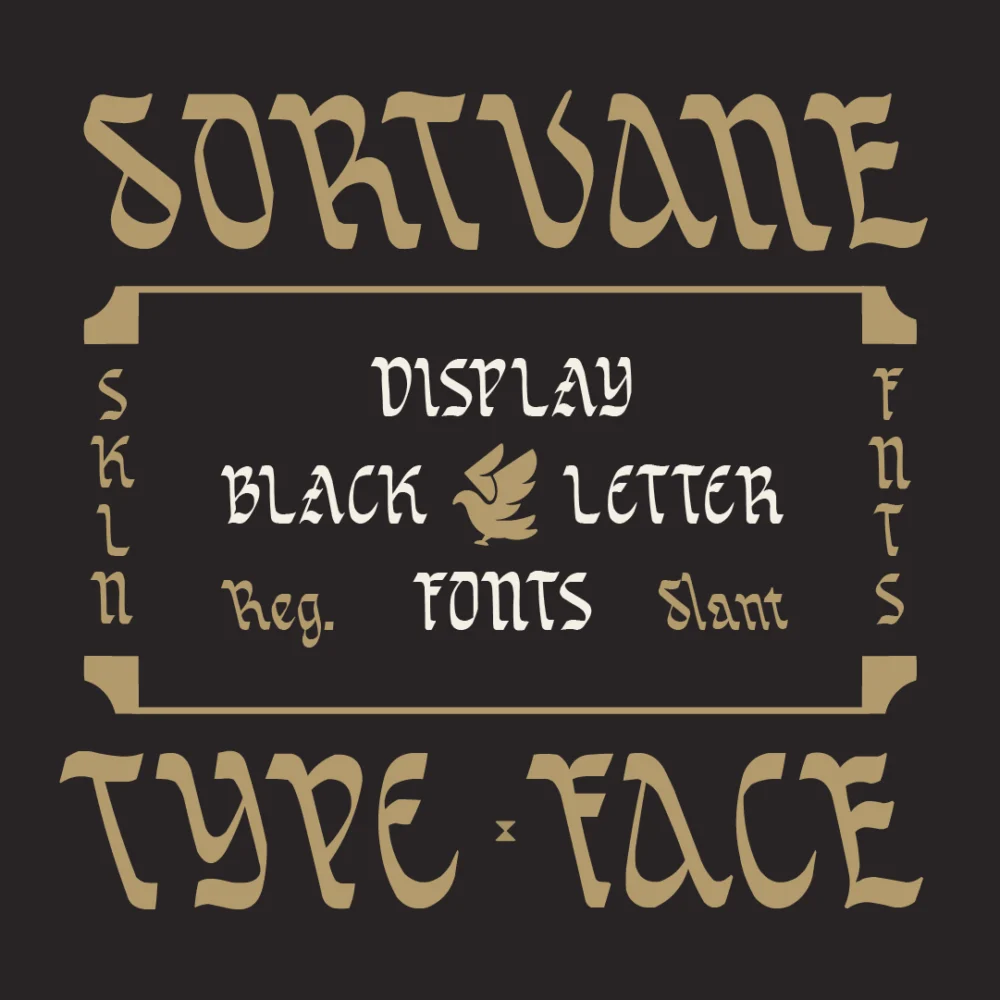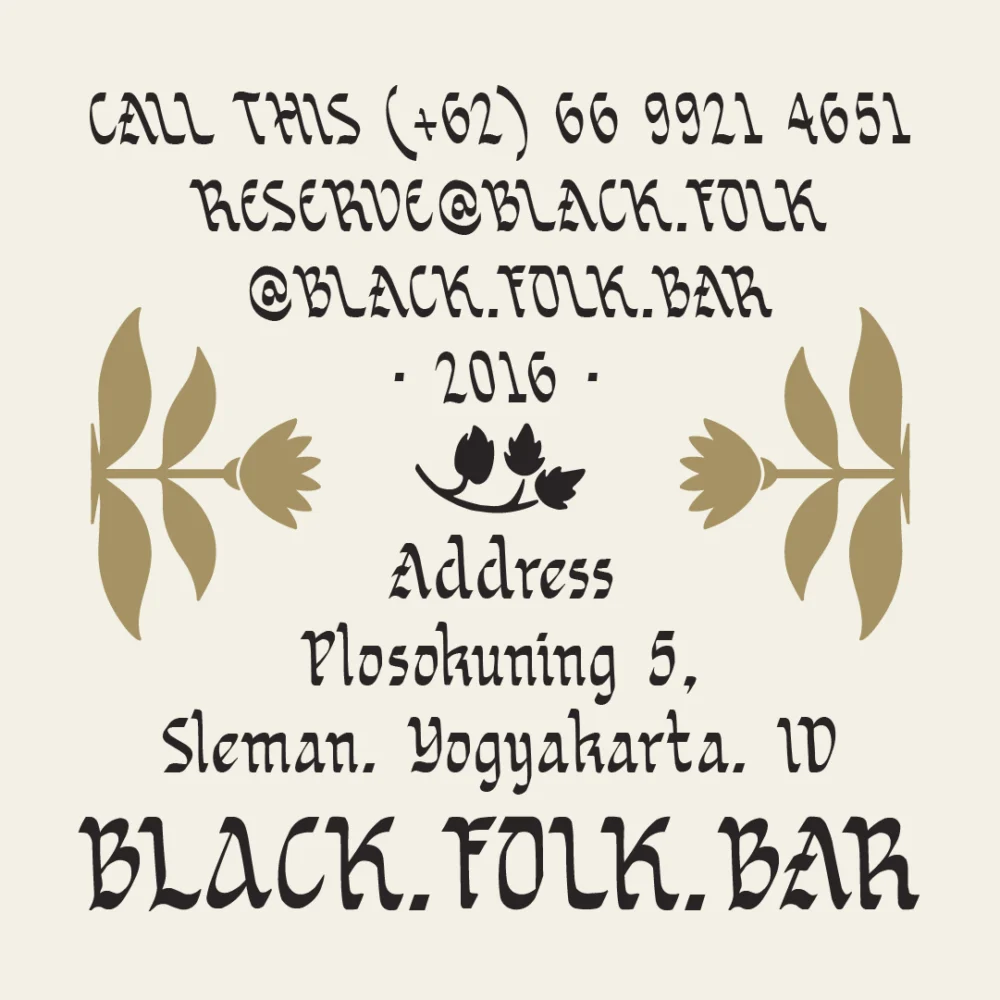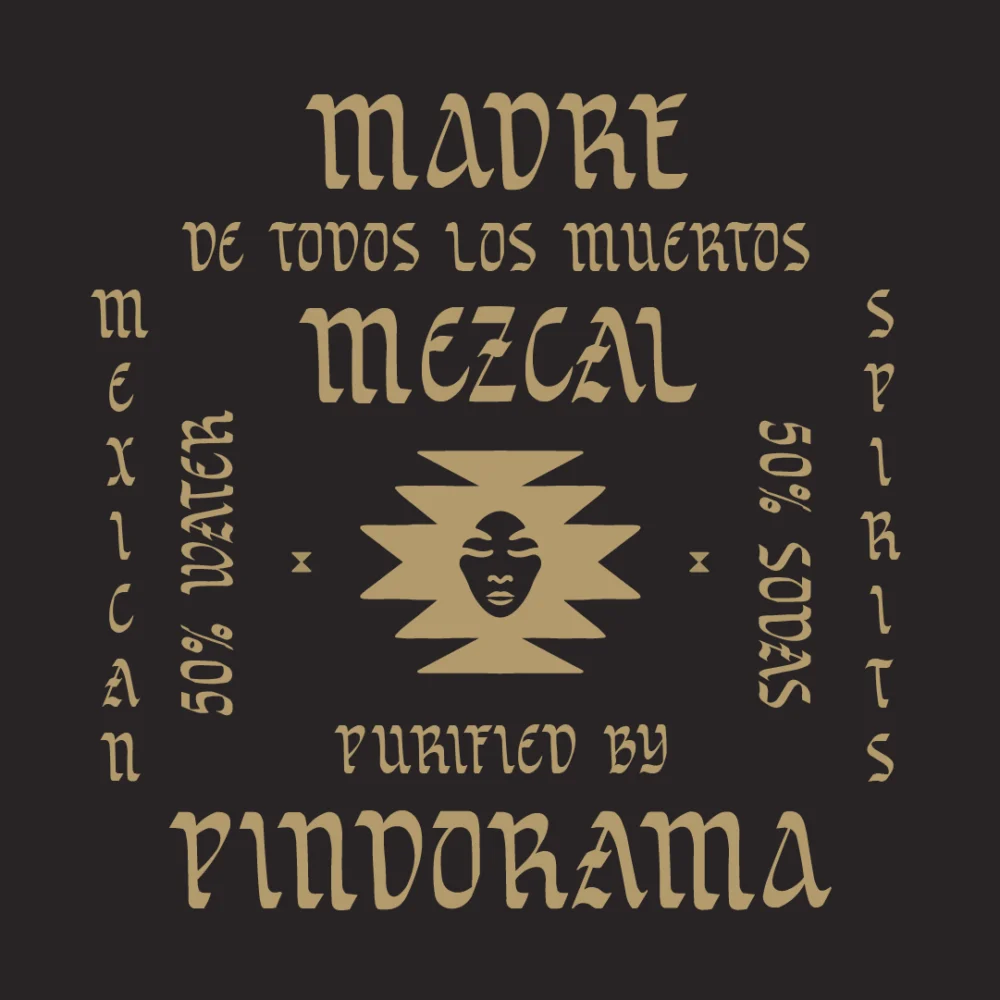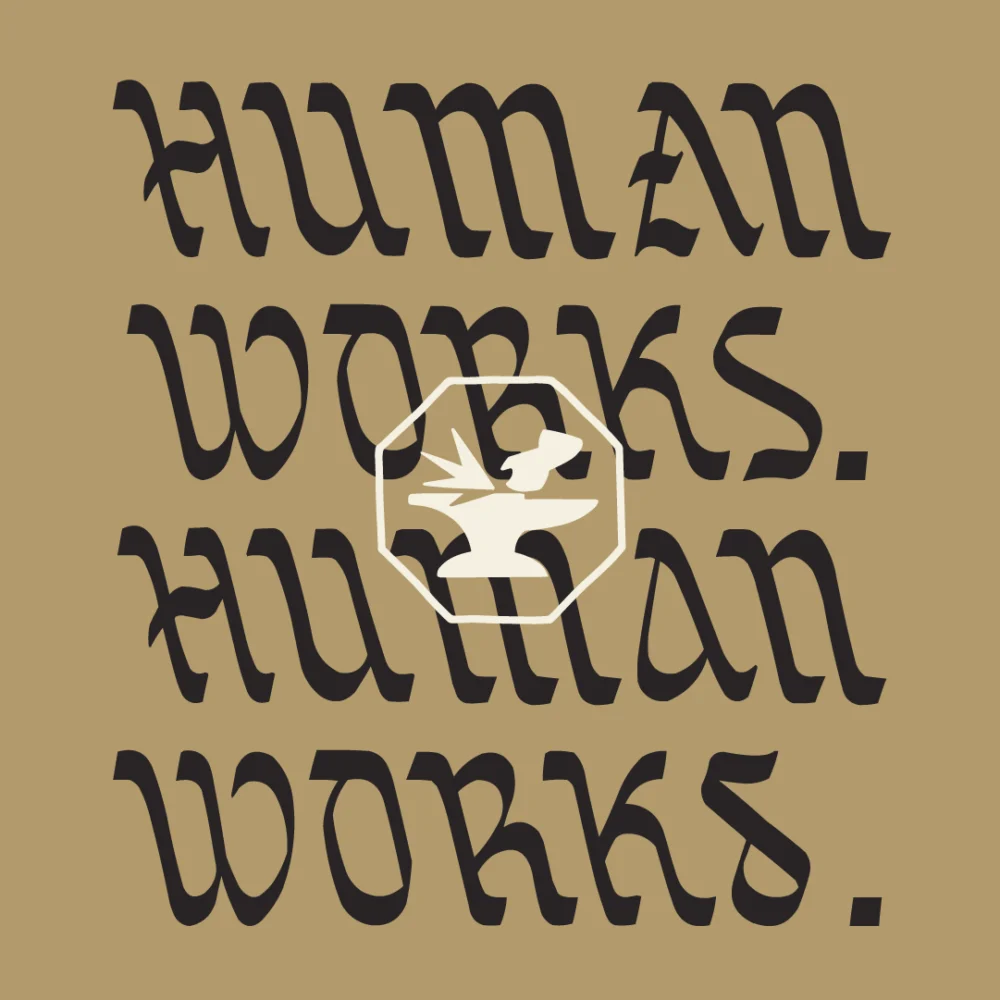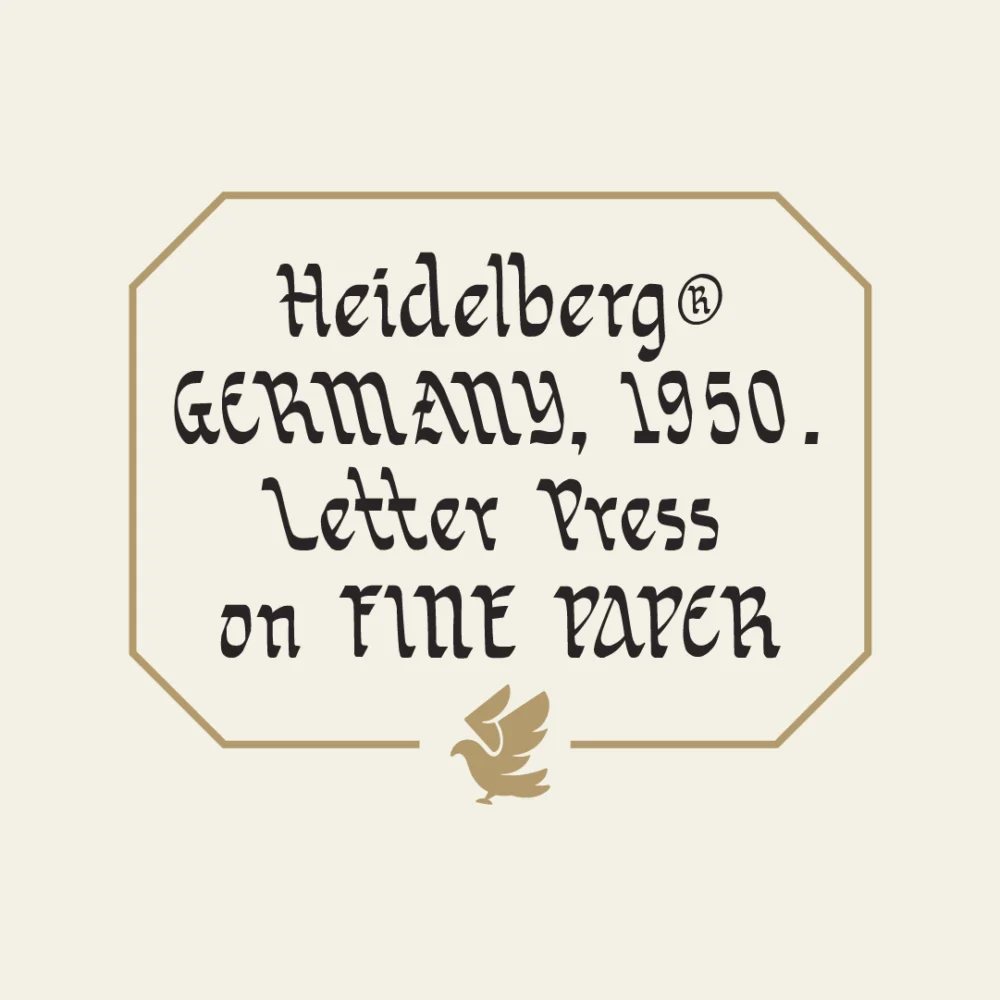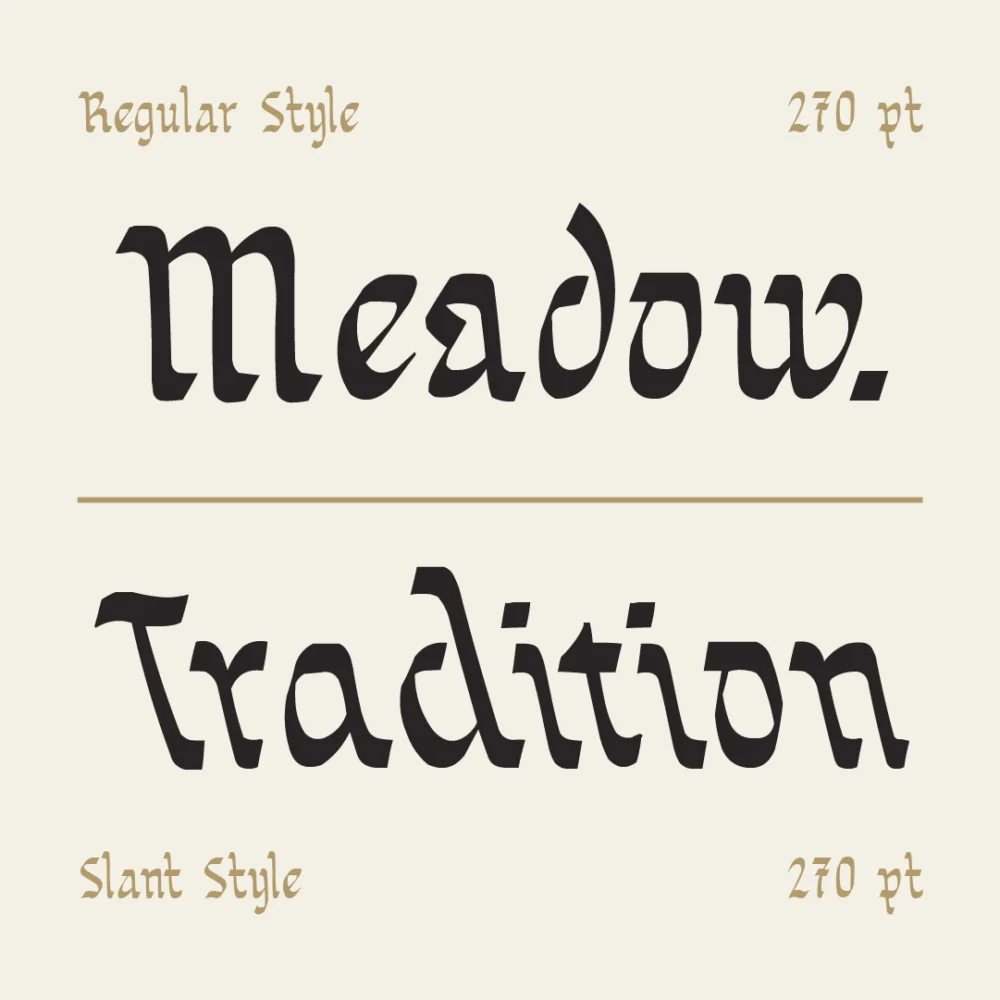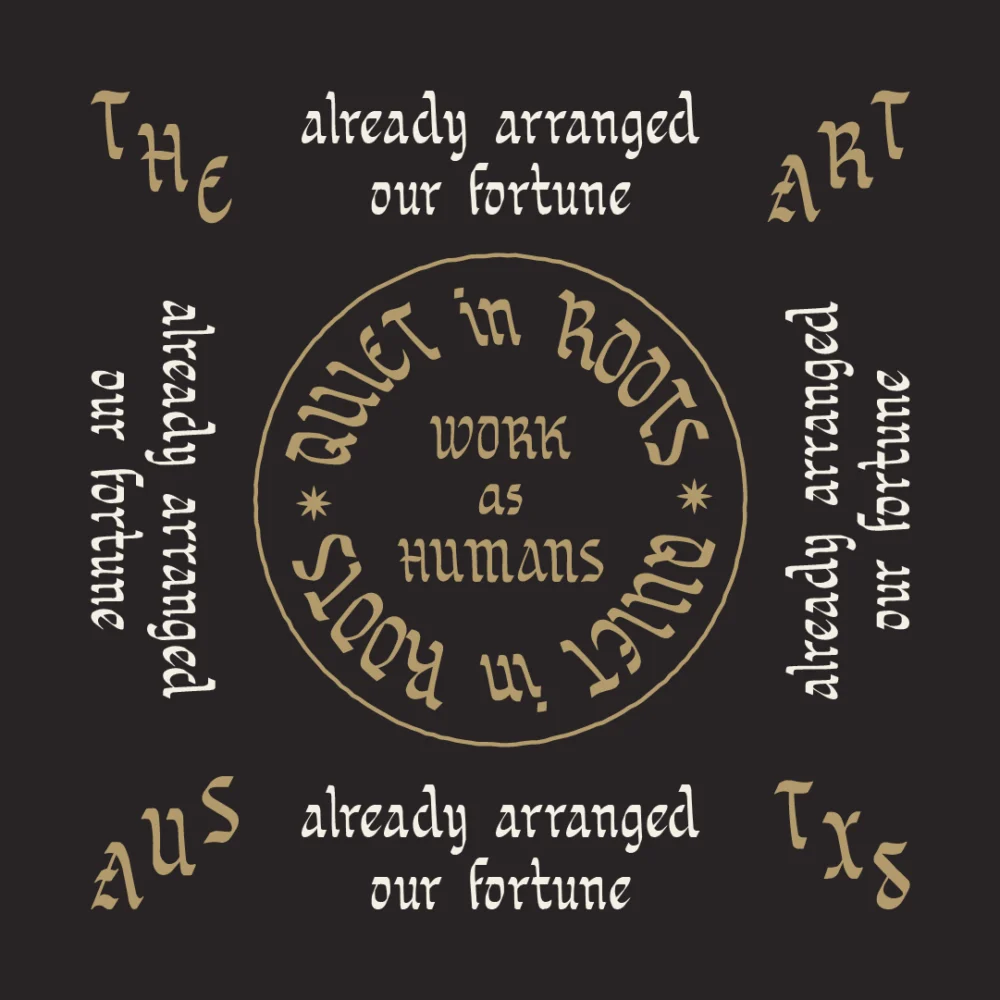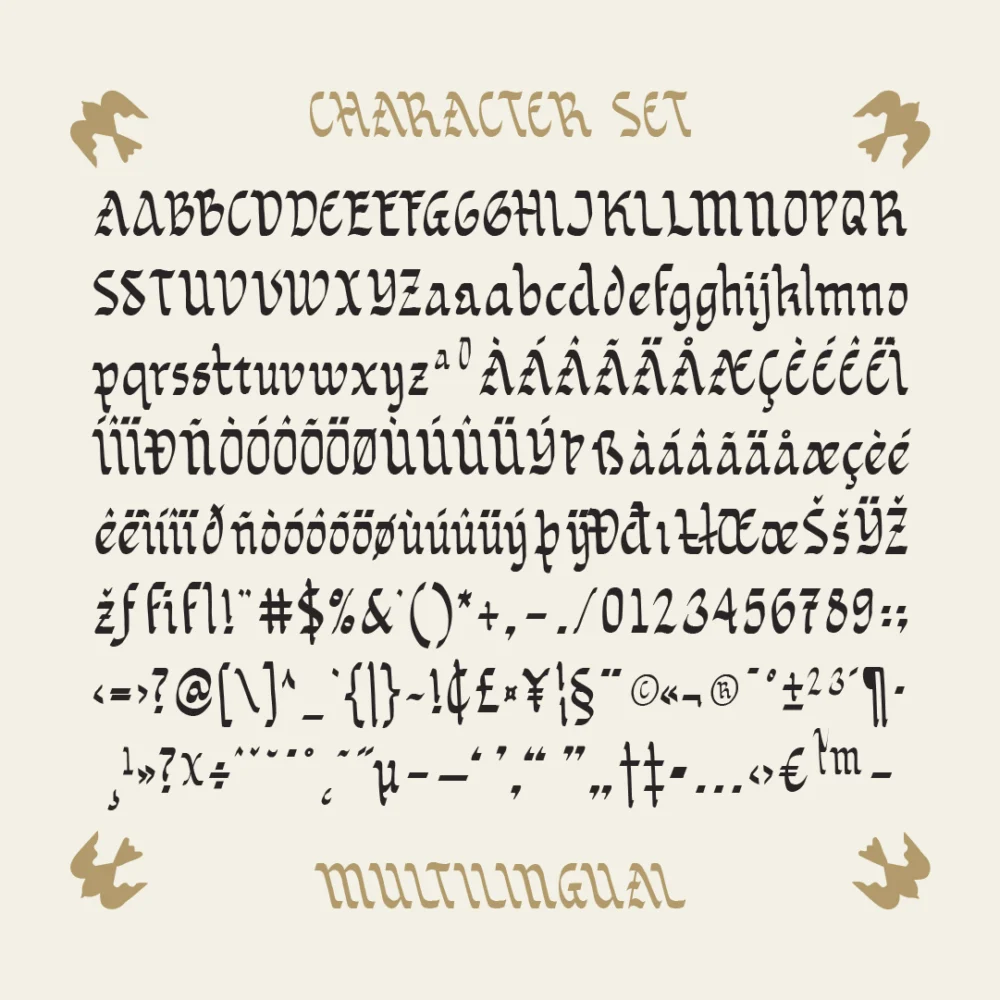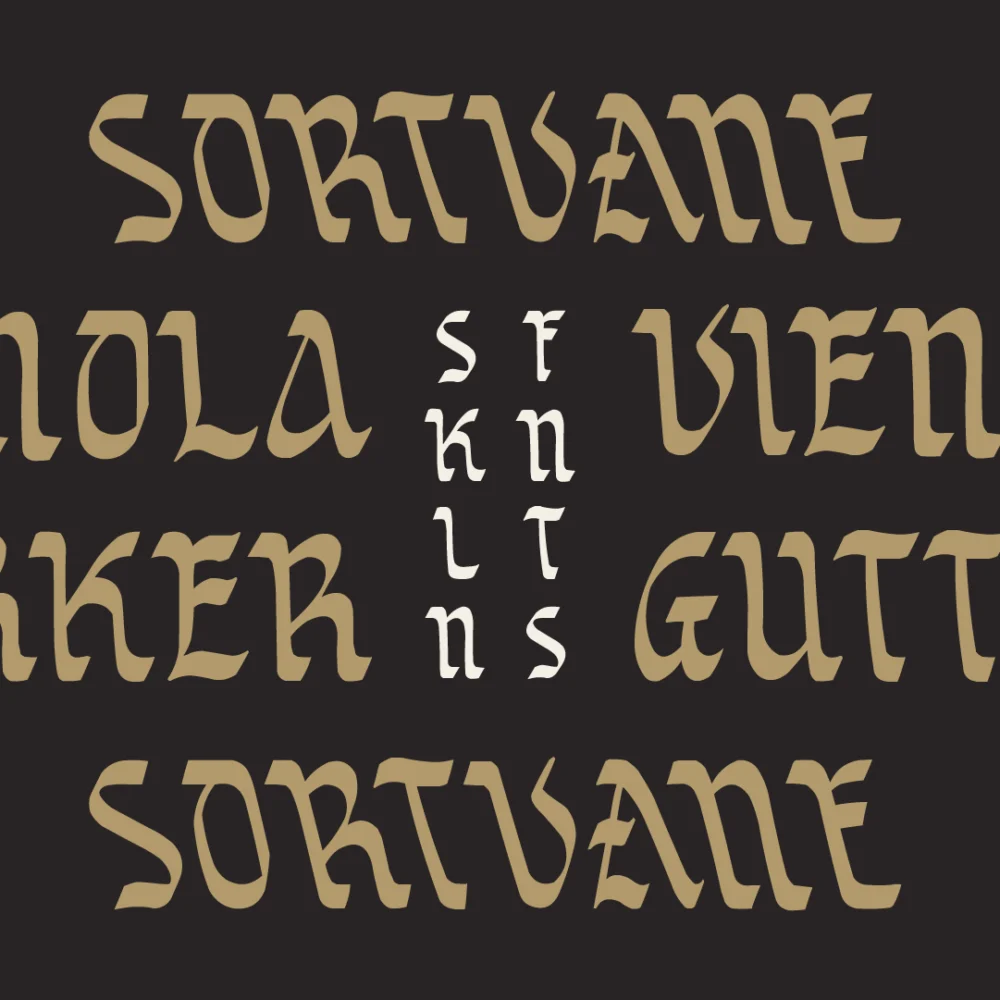
SFC Sortvane is a handcrafted blackletter display font that captures the elegance of medieval lettering while embracing a refined contemporary aesthetic. Inspired by centuries of European manuscript traditions and heritage craftsmanship, Sortvane transforms classic blackletter forms into a warm, approachable typeface suitable for today’s creative industries. Every character is carefully designed with flowing curves, distinctive terminals, and handcrafted imperfections that give the font a genuine artisanal personality. While rooted in historical typography, Sortvane offers improved readability and versatility, making it an excellent choice for modern branding, editorial design, premium packaging, and hospitality projects.
Sortvane is ideal for designers looking to create memorable visual identities with authenticity and character. Its expressive letterforms bring sophistication to logos, headlines, labels, menus, signage, book covers, posters, invitations, and luxury branding while maintaining the timeless beauty of traditional blackletter typography.
Whether you’re designing for artisan coffee roasters, boutique hotels, handcrafted products, heritage-inspired restaurants, creative studios, or premium lifestyle brands, Sortvane provides a distinctive visual voice that feels both classic and contemporary. Designed with multilingual support and professional OpenType features, Sortvane is a versatile display typeface built for branding that values craftsmanship, quality, and timeless design.
- Blackletter Display Typeface
- Handcrafted, Organic & Vintage Character
- Elegant, Expressive & Heritage-Inspired Personality
- Uppercase, Lowercase, Numerals & Punctuation
- Multilingual Support